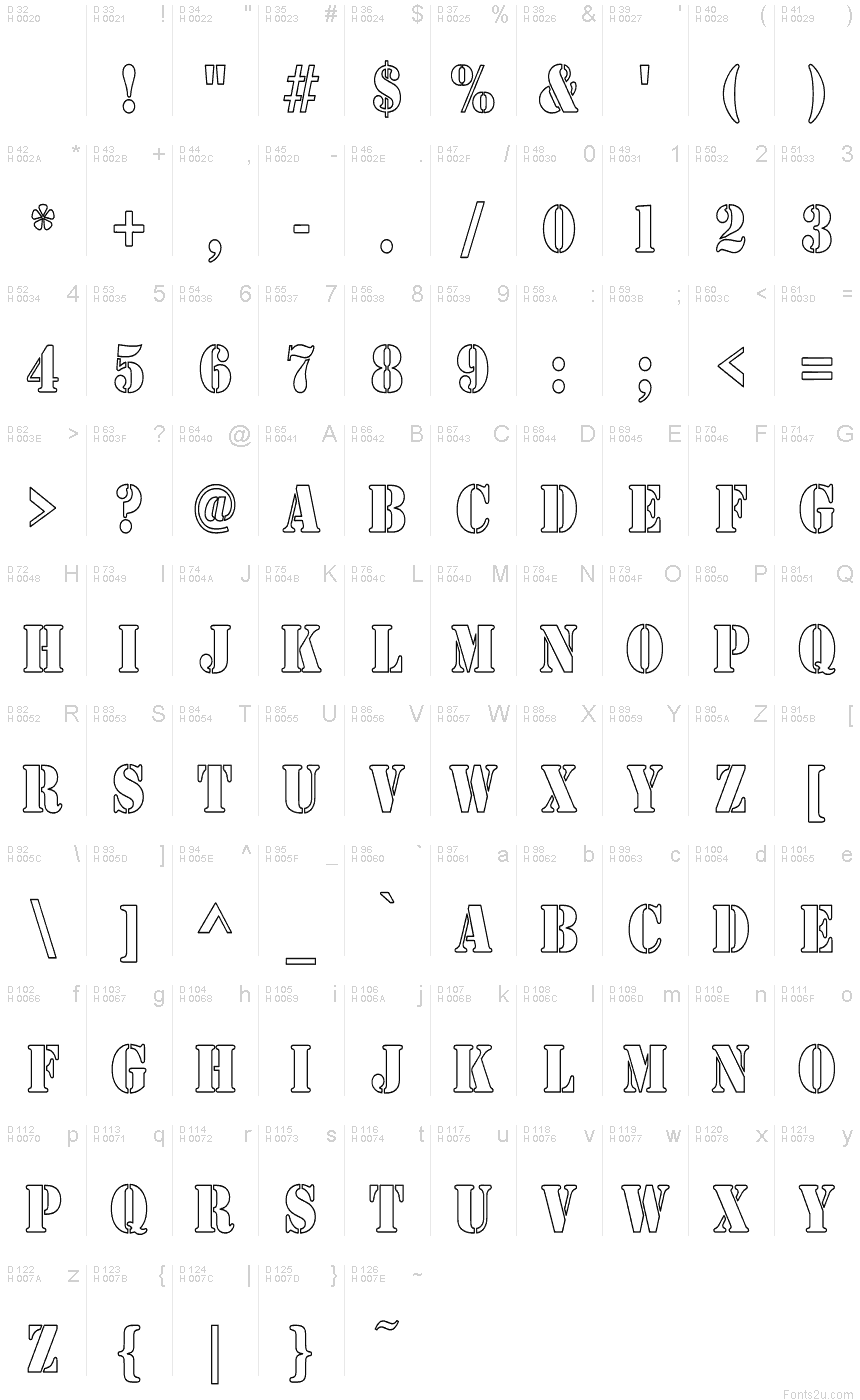
Army Hollow Thin font by Alltype is a free outlined military display typeface with a crisp, parade-ready presence. Tall, blocky letterforms echo classic army lettering, but the inner hollows keep it light and breathable, like metal signage cut from a single sheet. The thin black contour feels sharp and precise, giving headlines a drilled, disciplined look without feeling heavy or cluttered.
Using Army Hollow Thin, your titles snap to attention on posters, recruitment flyers, war‑themed games, survival packaging, tactical sports branding, and vintage military tees. This free font works best set large so the hollow structure and clean edges stay clear; pair it with a simple sans serif for body copy to keep the message strong and readable.